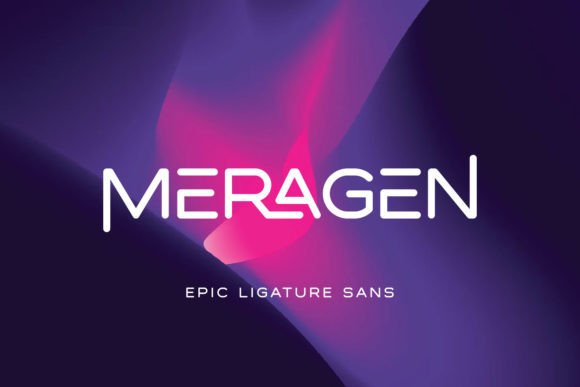
Looking for the perfect font to make your project stand out? Look no further than Meragen Font, the best font for back cover blurbs! Created by variatype, this sans-serif font is not only versatile but also stylish, making it the ideal choice for all your design needs.
With its exclusive ligatures and stylistic alternates, Meragen Font brings a touch of elegance to any project. Whether you're working on a logotype, corporate branding, poster design, business cards, or even a headline cover, this font is sure to make a lasting impression.
One of the greatest features of Meragen Font is its PUA encoding. This means that accessing the wide range of amazing glyphs and ligatures is a breeze! No need to struggle or waste time searching for the perfect character - Meragen Font has got you covered.
But what truly sets Meragen Font apart is its ability to evoke emotions. When you use this font, your project instantly becomes captivating and intriguing. Its sleek and modern design theme adds a sense of sophistication, making it impossible for users to look away.
Imagine effortlessly drawing attention to your back cover blurb with Meragen Font. Its eye-catching appeal will captivate readers and entice them to dive into your story. Whether you're writing a novel, a non-fiction book, or even a magazine, this font will elevate your words and make them truly shine.